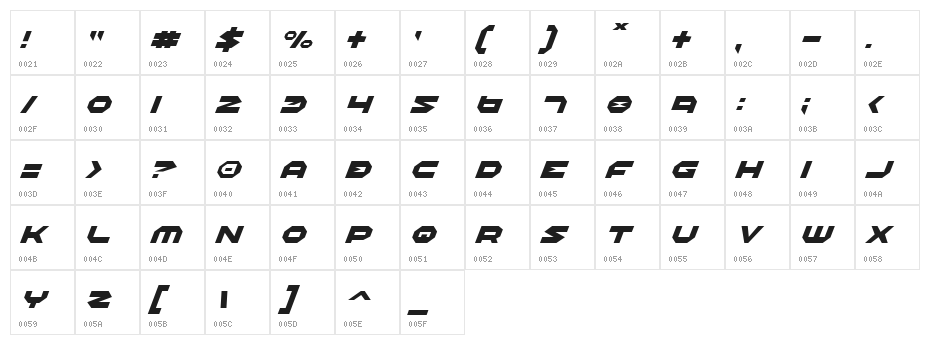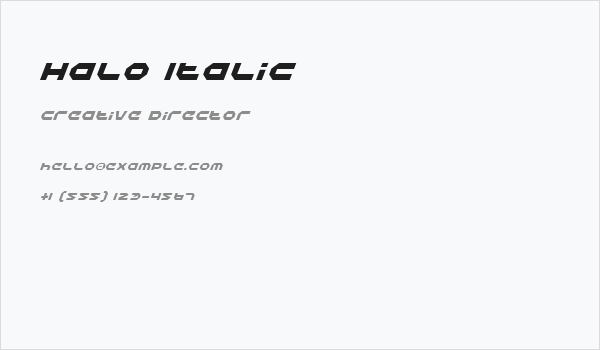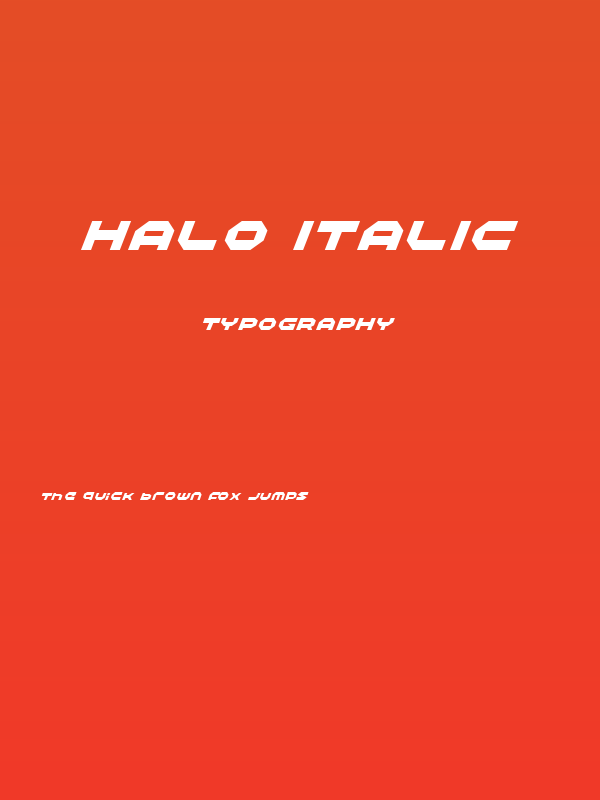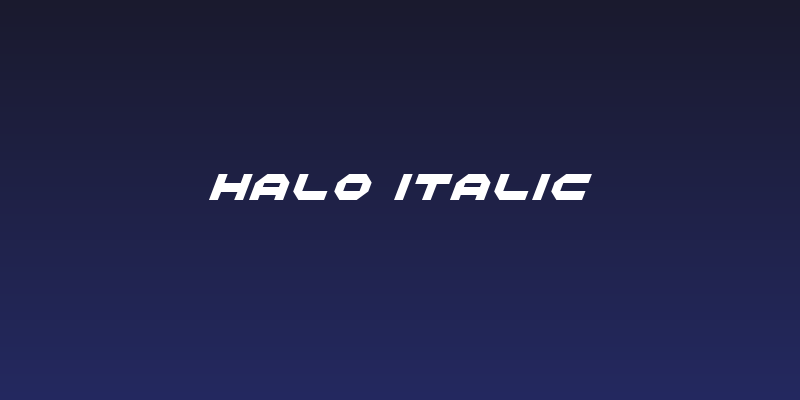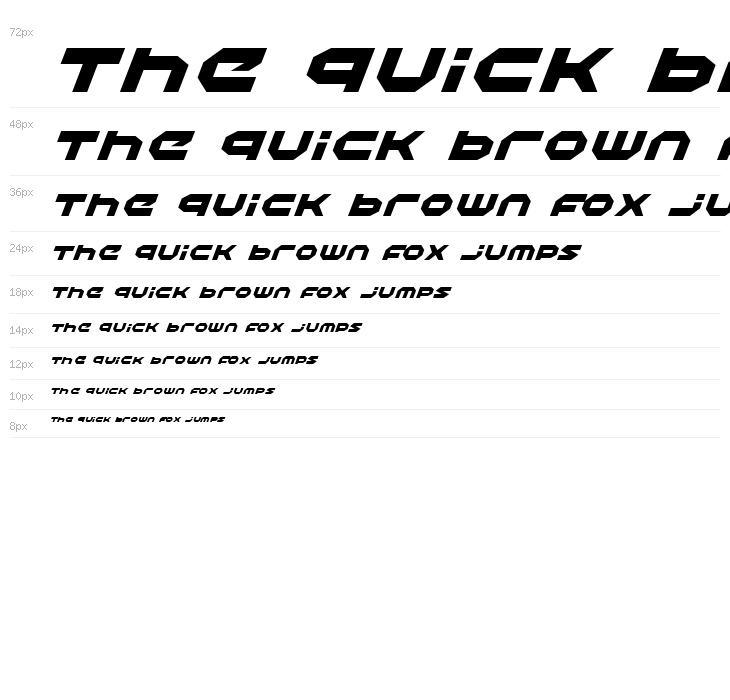
Halo Italic Font
Halo Italic Description
This font features a bold, angular design with a futuristic and dynamic appearance. The characters are sharply defined with a distinct geometric style, creating a sense of movement and energy. The italicized slant enhances its modern and edgy look, making it suitable for projects that require a strong visual impact. The uppercase and lowercase letters maintain a consistent style, with unique cuts and angles that add to its distinctive character. Numbers and special characters follow the same design principles, ensuring uniformity across all elements.
| Proposed Projects | Ideal for sci-fi themed designs, video game graphics, tech branding, and modern advertising. |